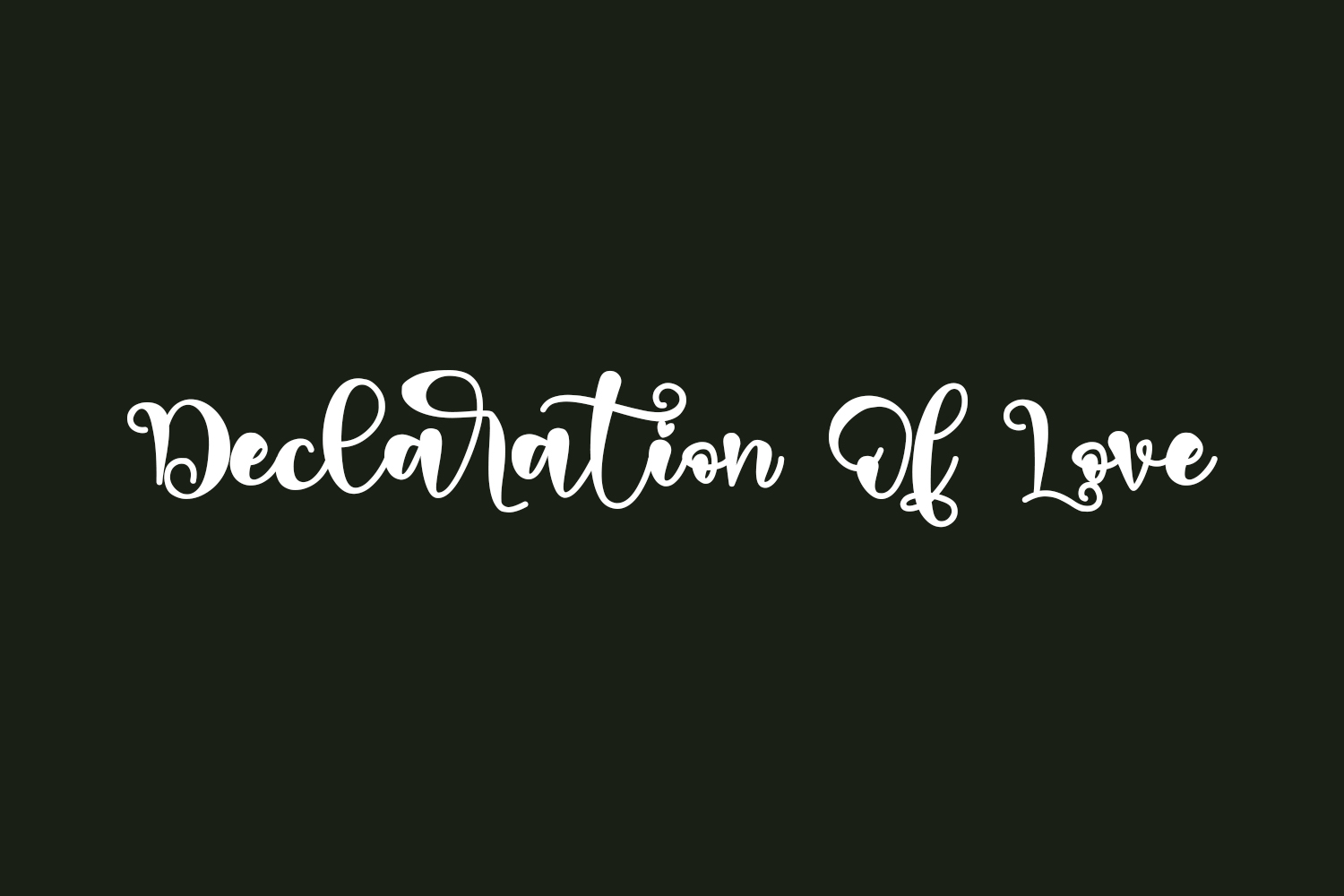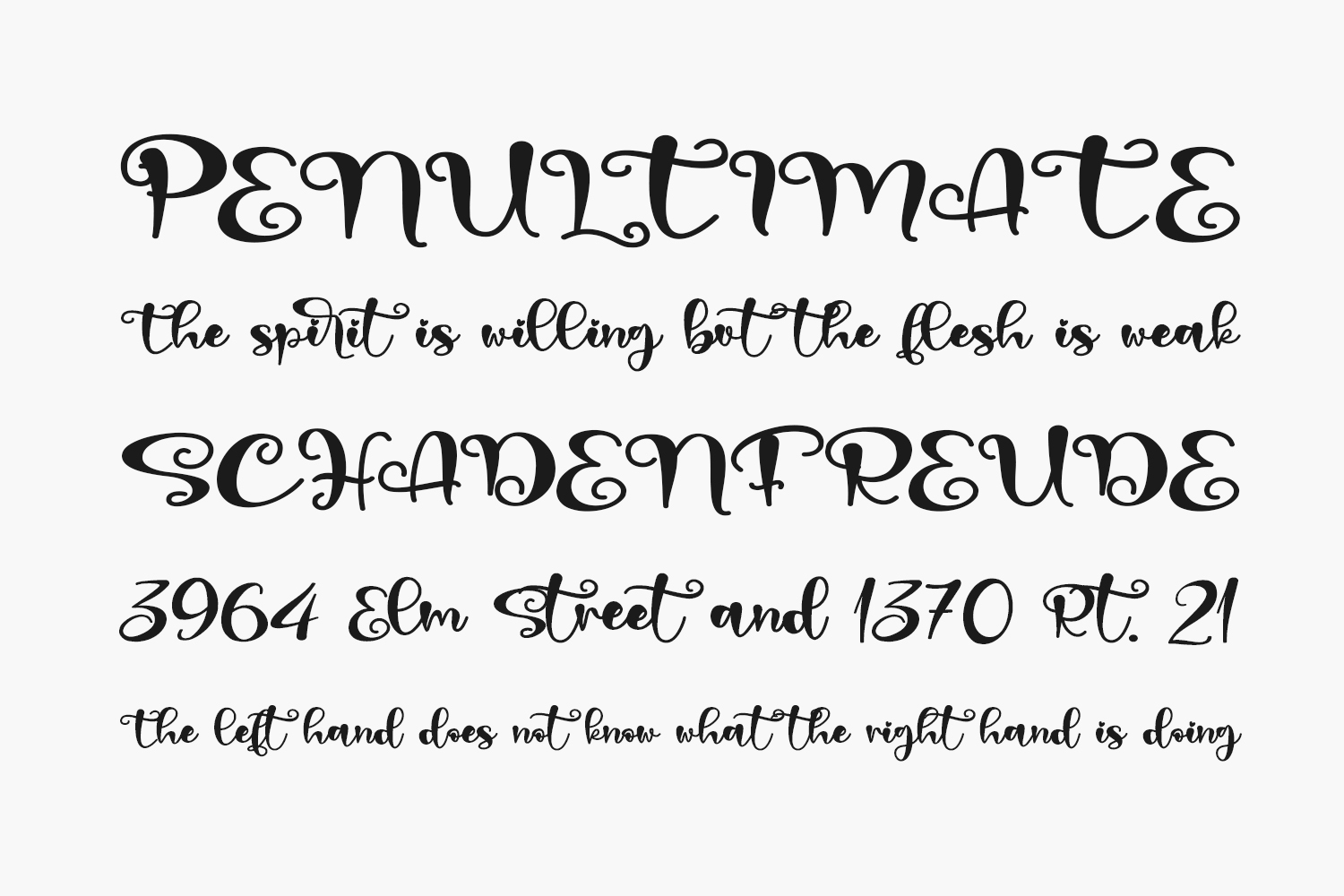
Declaration Of Love Free Font is an elegant and flowing handwritten font. It is PUA encoded which means you can access all of the glyphs and swashes with ease! It maintains its classy calligraphic influences while feeling contemporary and fresh. Fall in love with this font and bring your projects to the highest levels. Declaration Of Love Free Font was designed by Letterara and is free for personal use only. Please purchase the full version for commercial use.